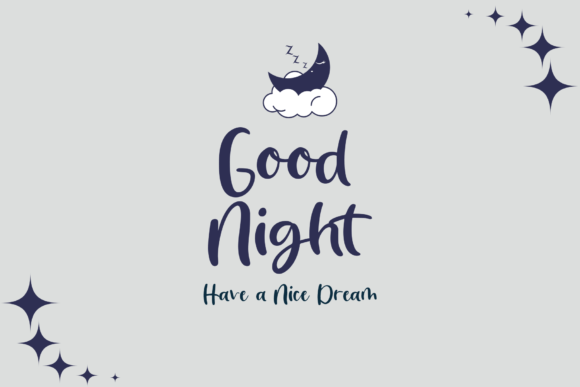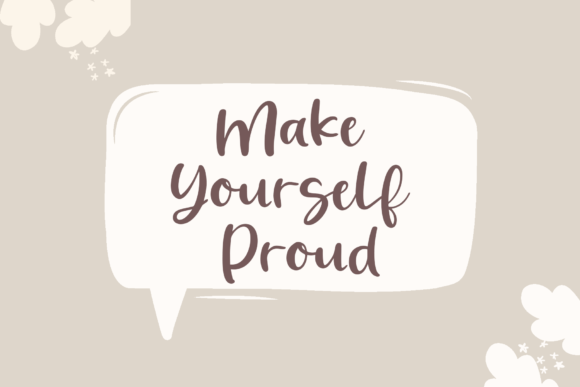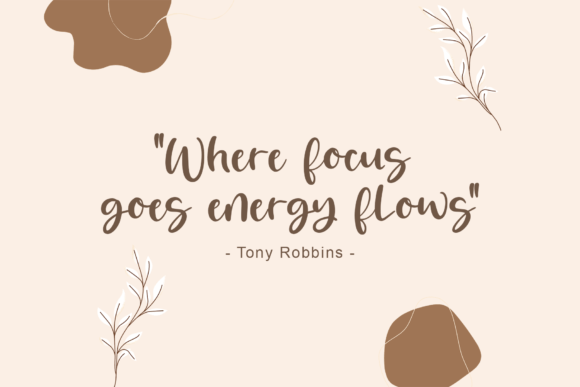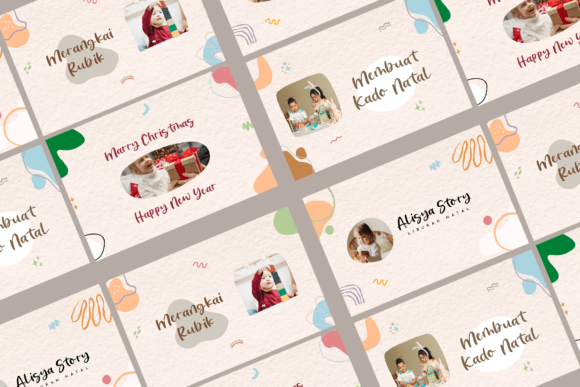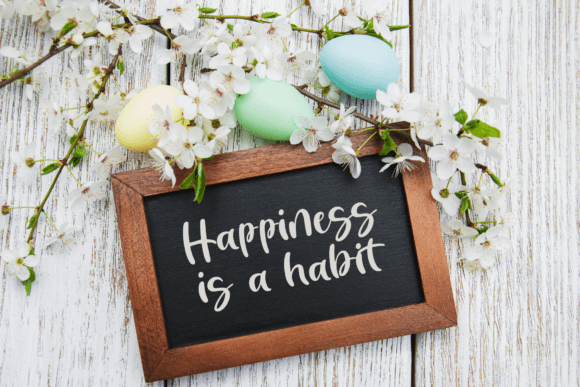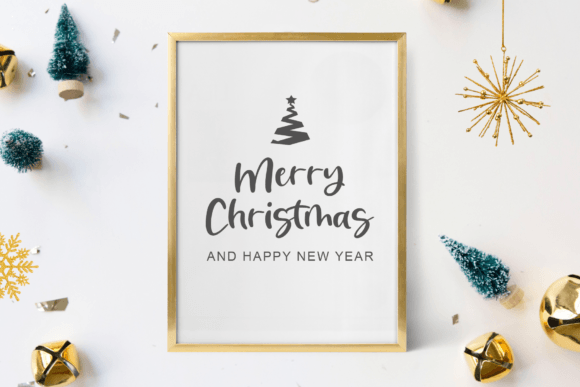
Introduction to Mister Longround Font
Mister Longround is a Handwritten Style font.
It has flowing letters that will give your designs a unique and sweet look Mister Longround font is perfect for logos, greeting cards, package design, a brand identity, craft design, any DIY project, book title, wedding invitation, packaging, and more.